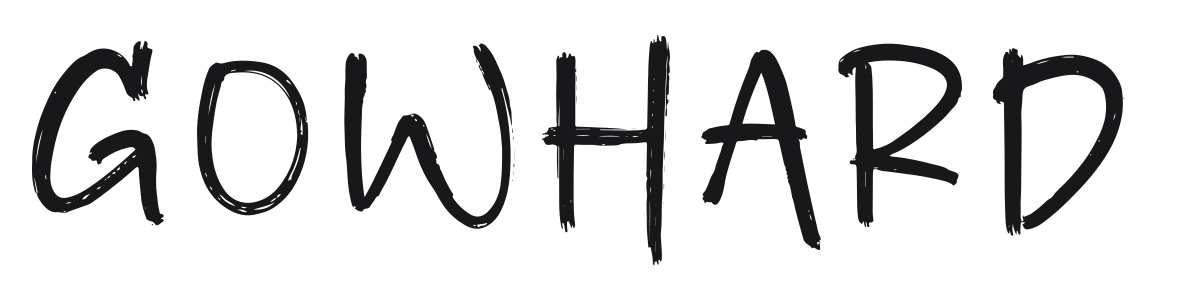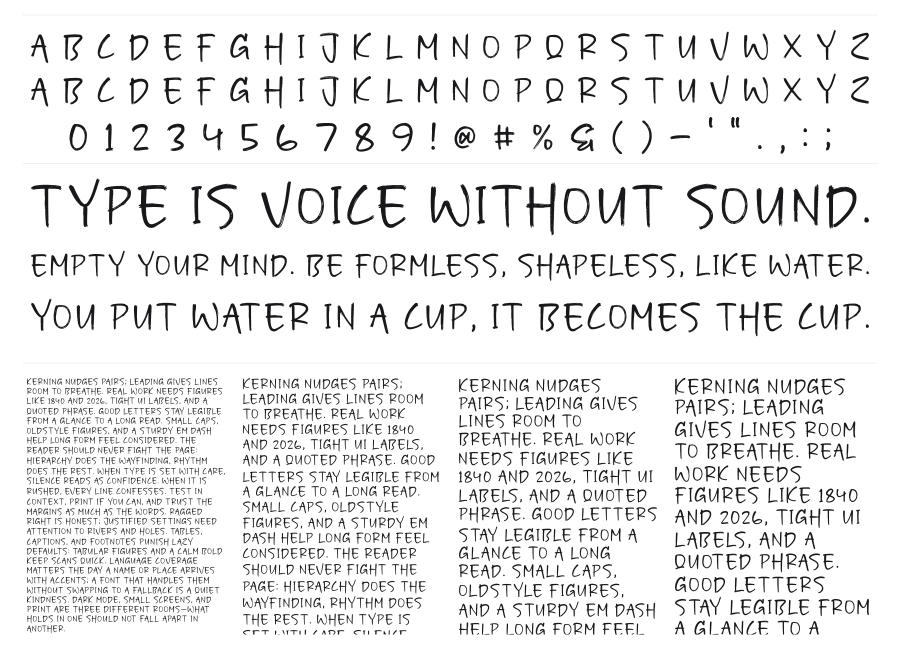
Gowhard
Gowhard is a casual brush-written font with rough, frayed stroke edges and an energetic handmade feel. The irregularity in each character gives it an authentic, un-polished quality that works well for brands or projects that want to feel approachable and real rather than slick. Strong at large sizes where the brushwork texture reads clearly.